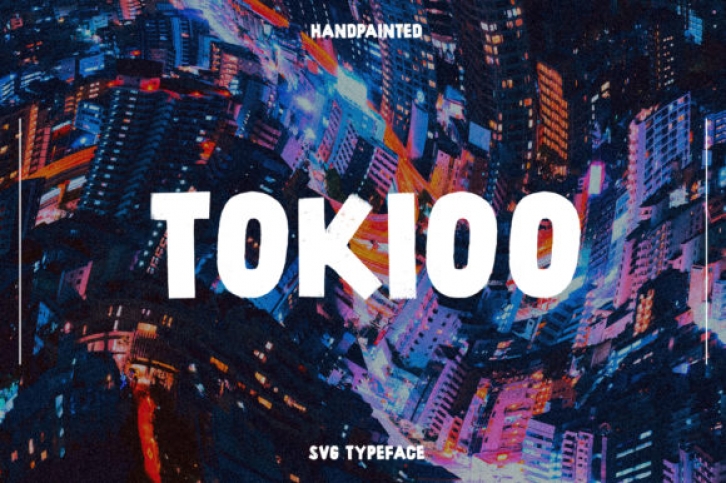
Tokioo is a bold and chunky lettered display font. Simple and natural, this font is ideal for a wide variety of designs. It will look amazing in both formal and informal contexts.